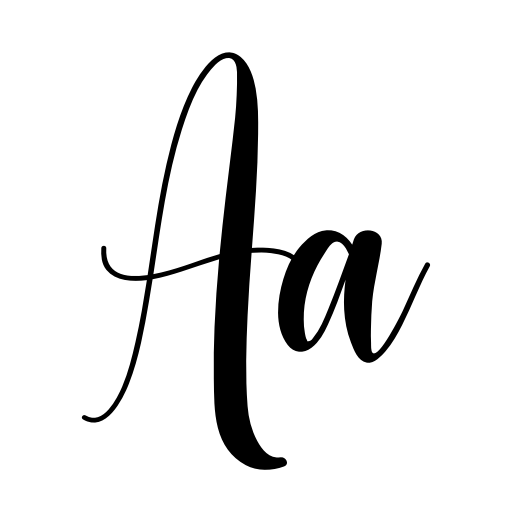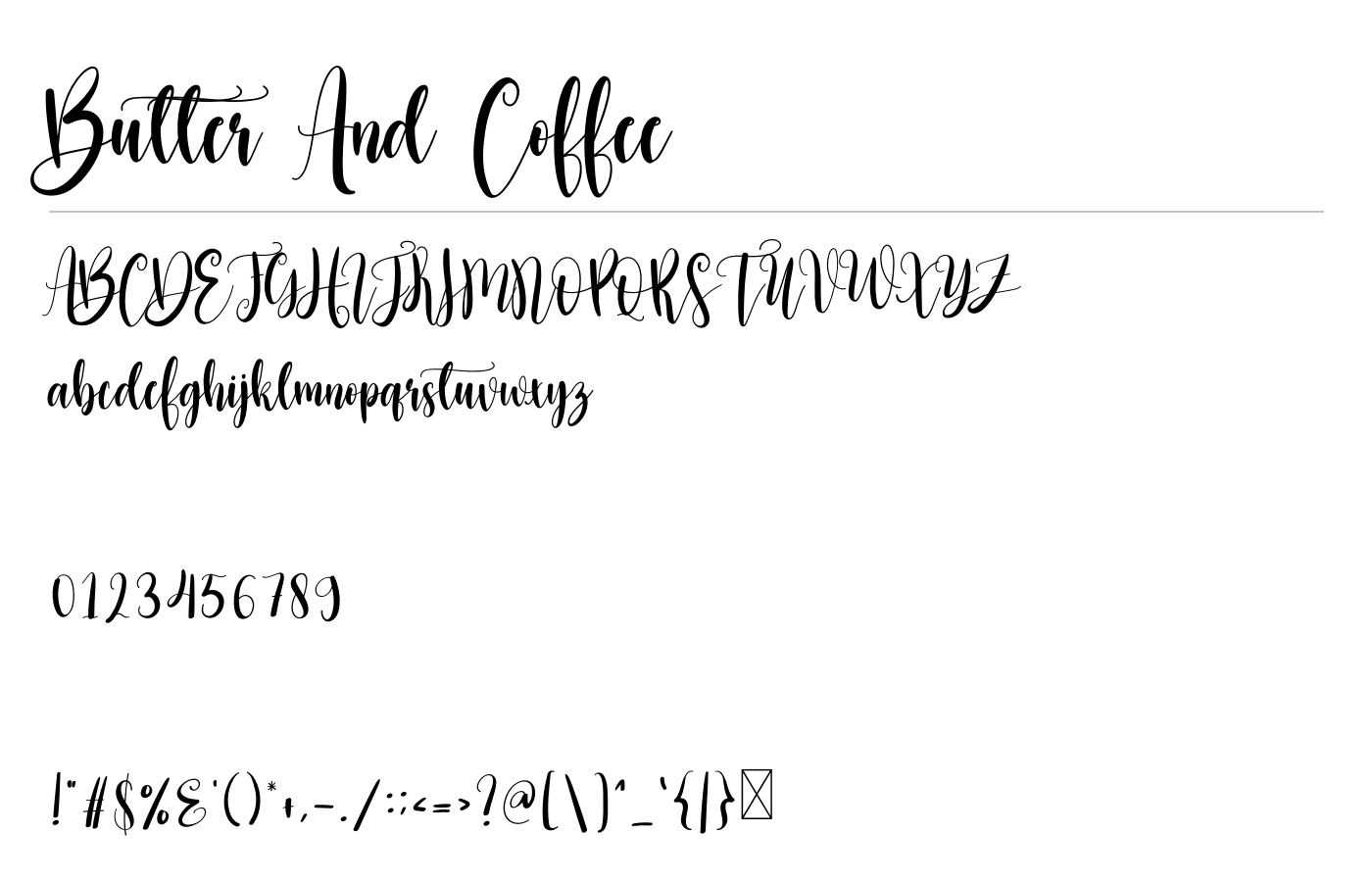
Butter And Coffee is a stylish script font with a lively, hand-lettered feel, featuring elegant, flowing strokes with varied thickness that add a playful yet sophisticated touch. Its tall, narrow letterforms combined with decorative swashes make it perfect for eye-catching headlines, branding, and invitations where a personal, artistic vibe is desired. This font works best in creative projects aiming to convey warmth, charm, and a modern handwritten appeal.
Butter And Coffee Font